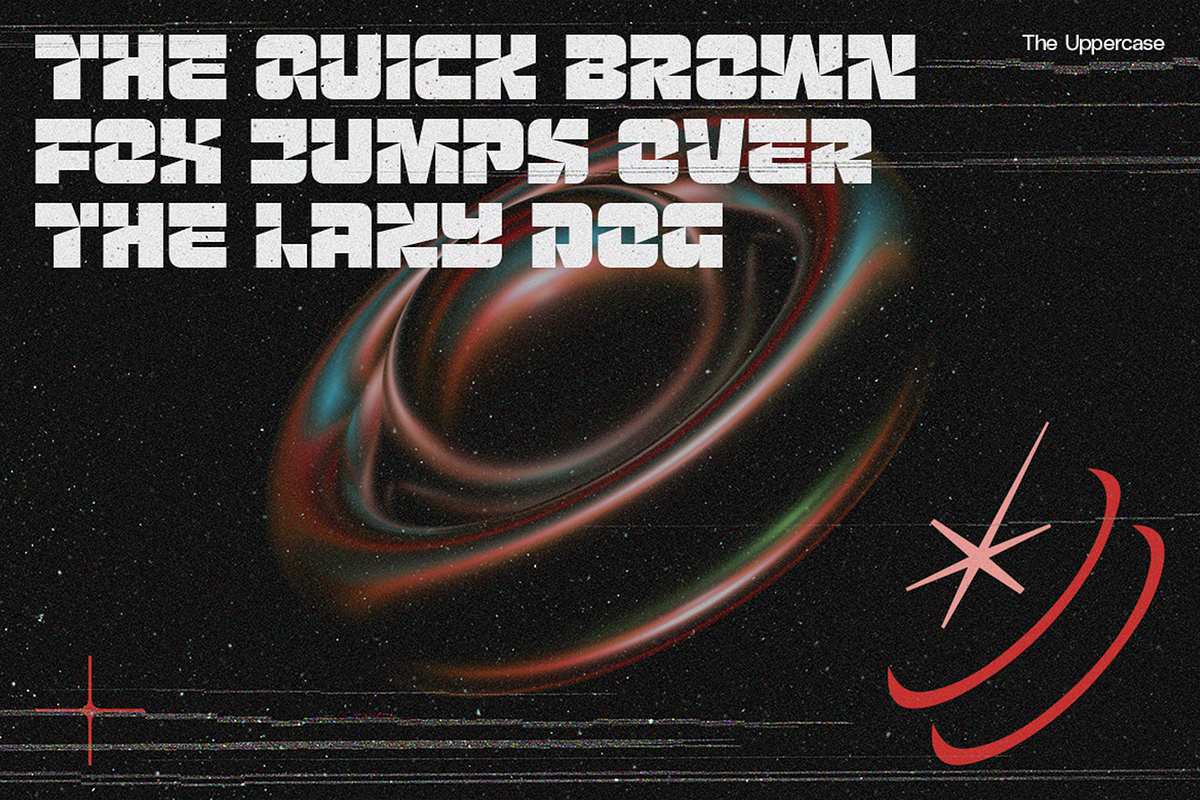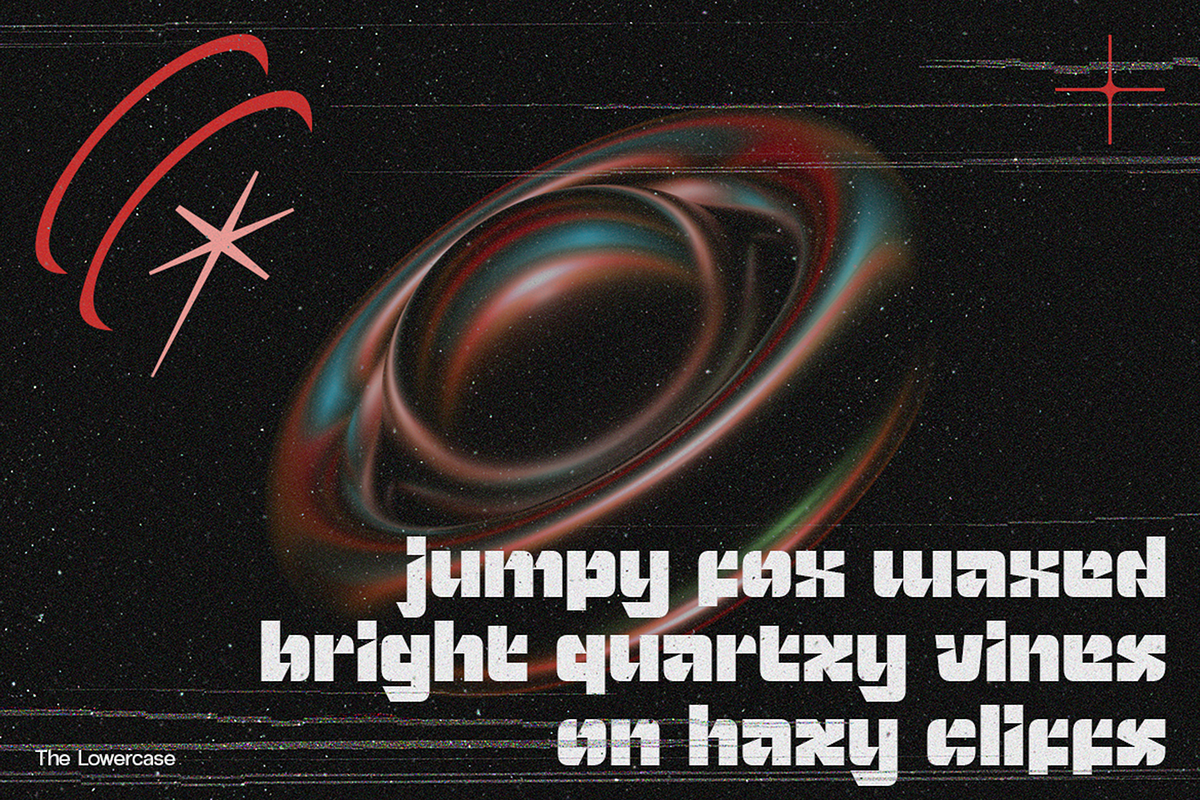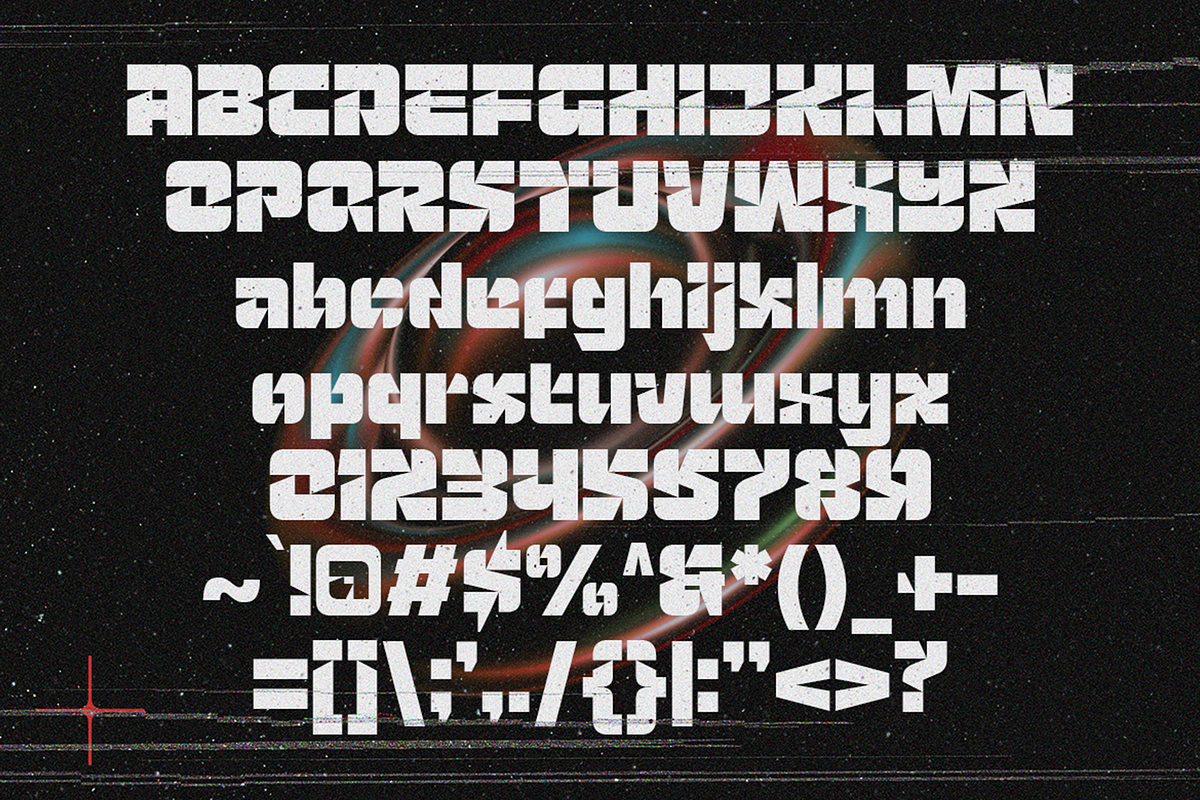
Blade Recoil - Futuristic Bold Fonts
BLADE RECOIL
Fonts from the Future
Break the limits of typography with Blade Recoil — a brutal, boxy, and bold futuristic font forged for the edge of tomorrow. With its razor-sharp angles, compact structure, and sci-fi soul, this typeface was built to slice through the noise. Every letterform is a statement — engineered for titles, posters, games, and any design that needs to look like it came from a classified off-world transmission.
Perfectly tuned for:
- Sci-fi posters
- Gaming interfaces & logos
- Futuristic branding
- Experimental visual identities
No curves. No compromise. Just raw, angular power packed into every glyph.
Ready to make your design feel like it’s armed with lasers?